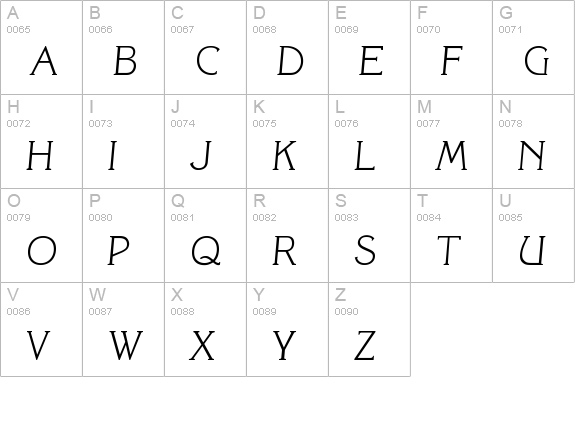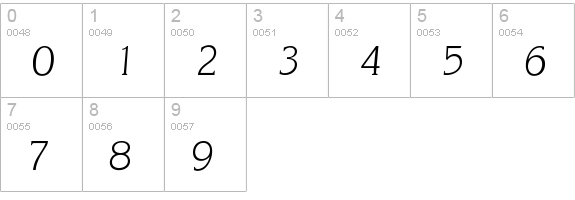
Korinth-XlightIta is a sleek and modern font that exudes elegance and sophistication. With its thin and italicized design, this typeface brings a sense of style to any project it is used in. The delicate curves and precise lines of Korinth-XlightIta make it perfect for adding a touch of refinement to branding materials, invitations, and more. What sets Korinth-XlightIta apart is that it is available for free download at FontsMarket.com. This means that you can easily access this beautiful font and start using it in your designs without any cost. Whether you are a designer looking to elevate your work or an individual seeking a unique font for personal projects, Korinth-XlightIta is a fantastic choice that won't break the bank. Download Korinth-XlightIta today and add a touch of sophistication to your creations.